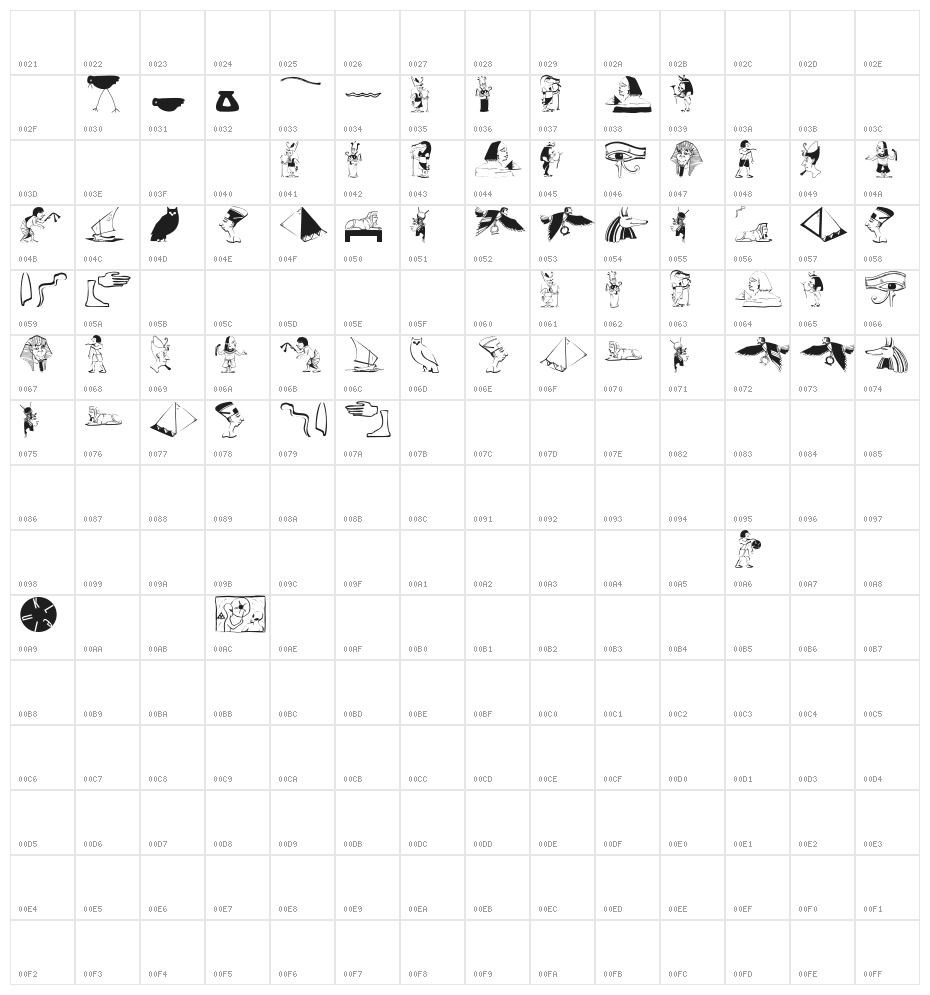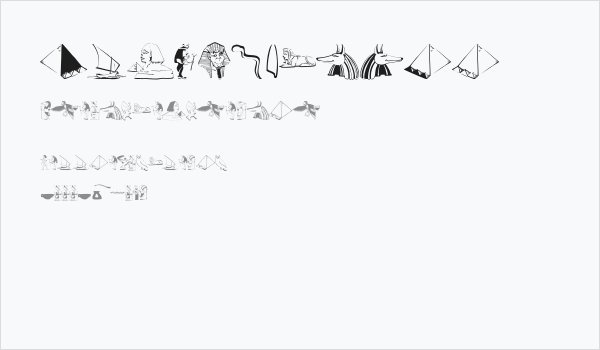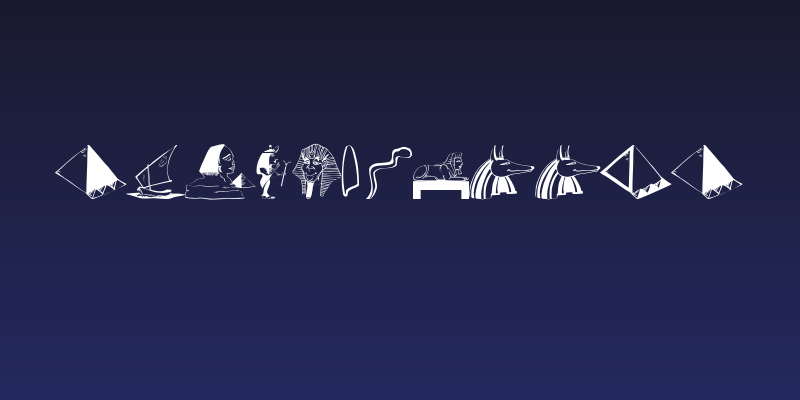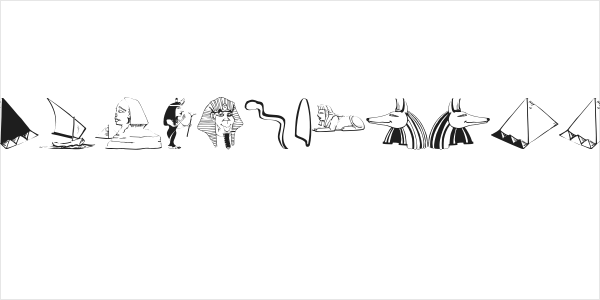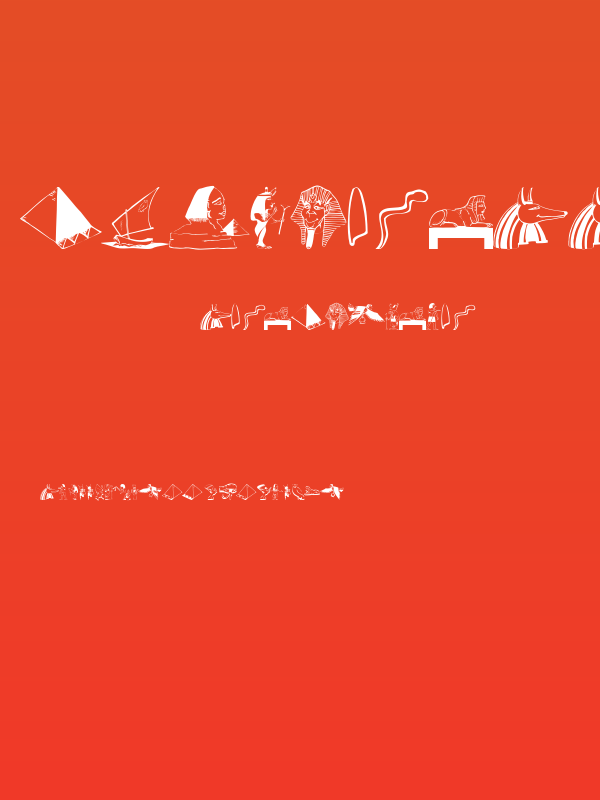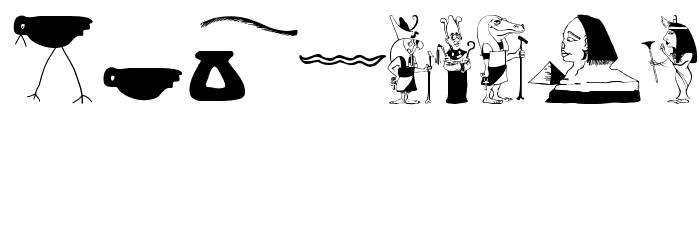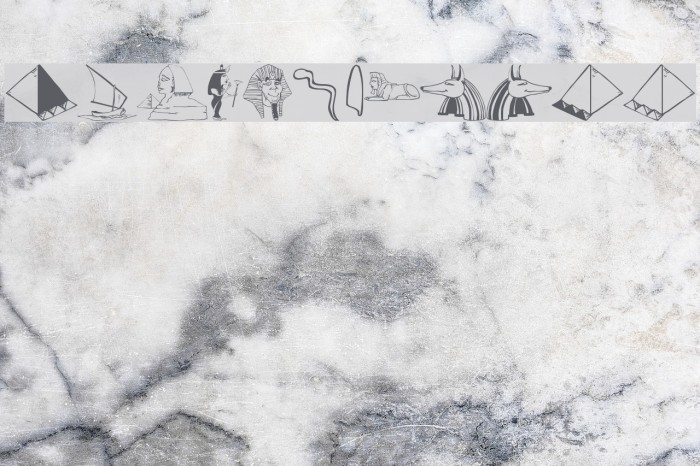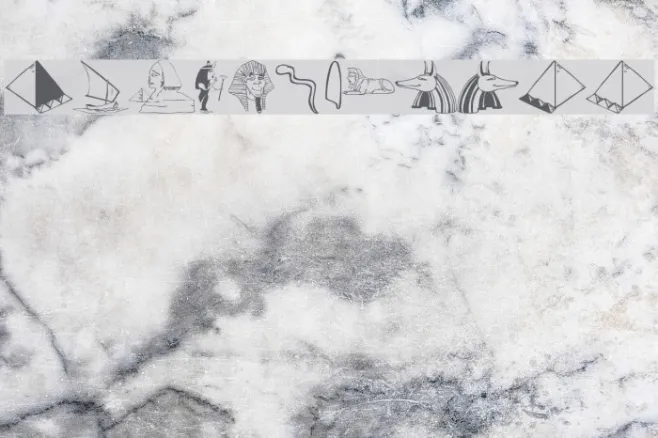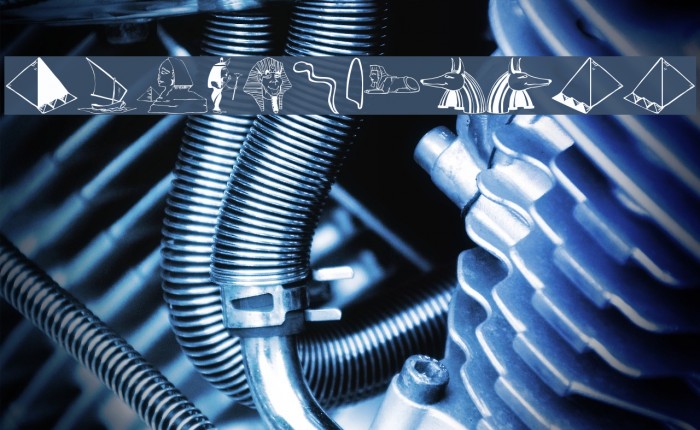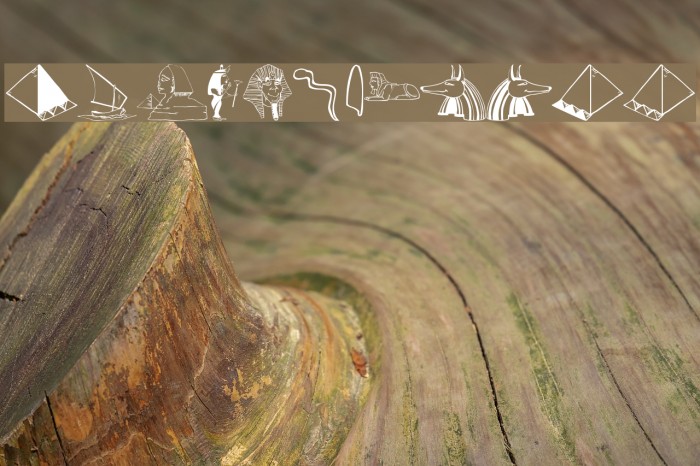
OldEgyptTwo Font
OldEgyptTwo Description
This font is a decorative and thematic collection of symbols inspired by ancient Egyptian hieroglyphs and iconography. Each character is represented by a distinct Egyptian figure or symbol, such as pharaohs, gods, pyramids, and other culturally significant motifs. The design is intricate, with detailed line work that captures the essence of ancient Egyptian art. The characters are not uniform in size or shape, reflecting the diverse nature of the symbols they represent. This font is more of an artistic representation rather than a traditional alphabet, making it suitable for creative and thematic projects.
| Use Case | Logos, Themed designs, Educational materials |
| Proposed Projects | Ideal for themed designs, educational materials about ancient Egypt, creative projects, and decorative purposes. |